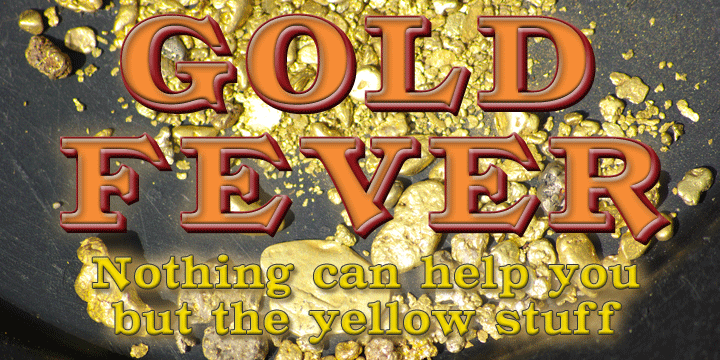
Gold Fever is a western font family. This typeface has eight styles and was published by FontMesa.
Gold Fever is a revival of the old classic Caxtonian font originaly designed in the mid to late 1800s.
Along with the original engraved shadow version new styles have been created making this decorative font set more complete. The new styles include a solid black, open faced, condensed and fill versions.